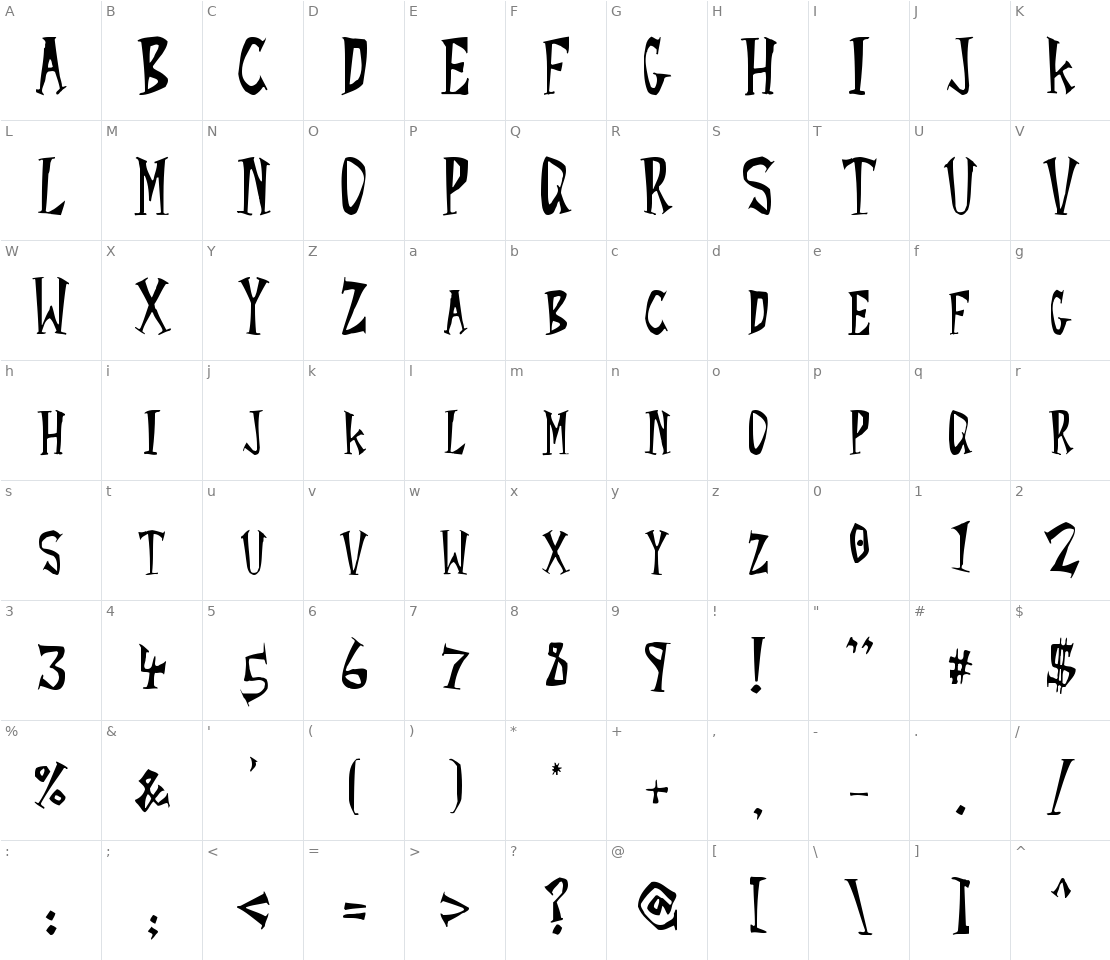
Rocket YoYo
Rocket YoYo is a hand-lettered comic face from Cumberland Fontworks with bouncy, irregular letterforms that feel like they were scrawled in a hurry by someone having a great time. The characters wobble and shift in size and baseline, giving it a loose, cartoonish energy that works for headlines, children's books, posters, and packaging where fun outranks formality.